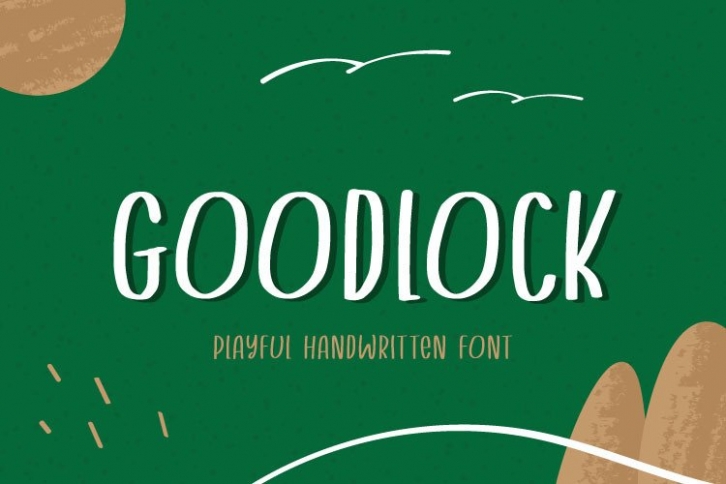
Goodlock is a simple and adaptable display font. No matter the topic, this font will be an incredible asset to your fonts’ library, as it has the potential to elevate any creation.